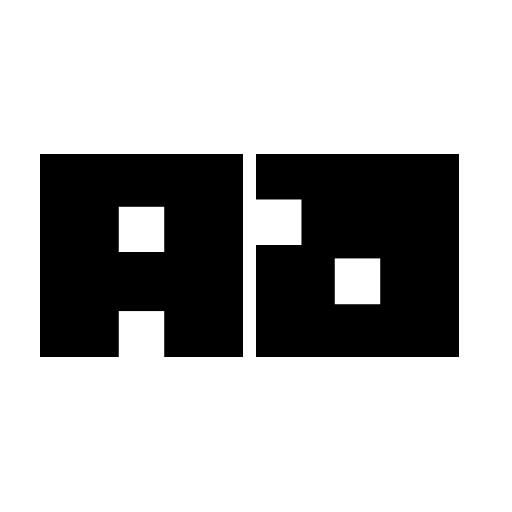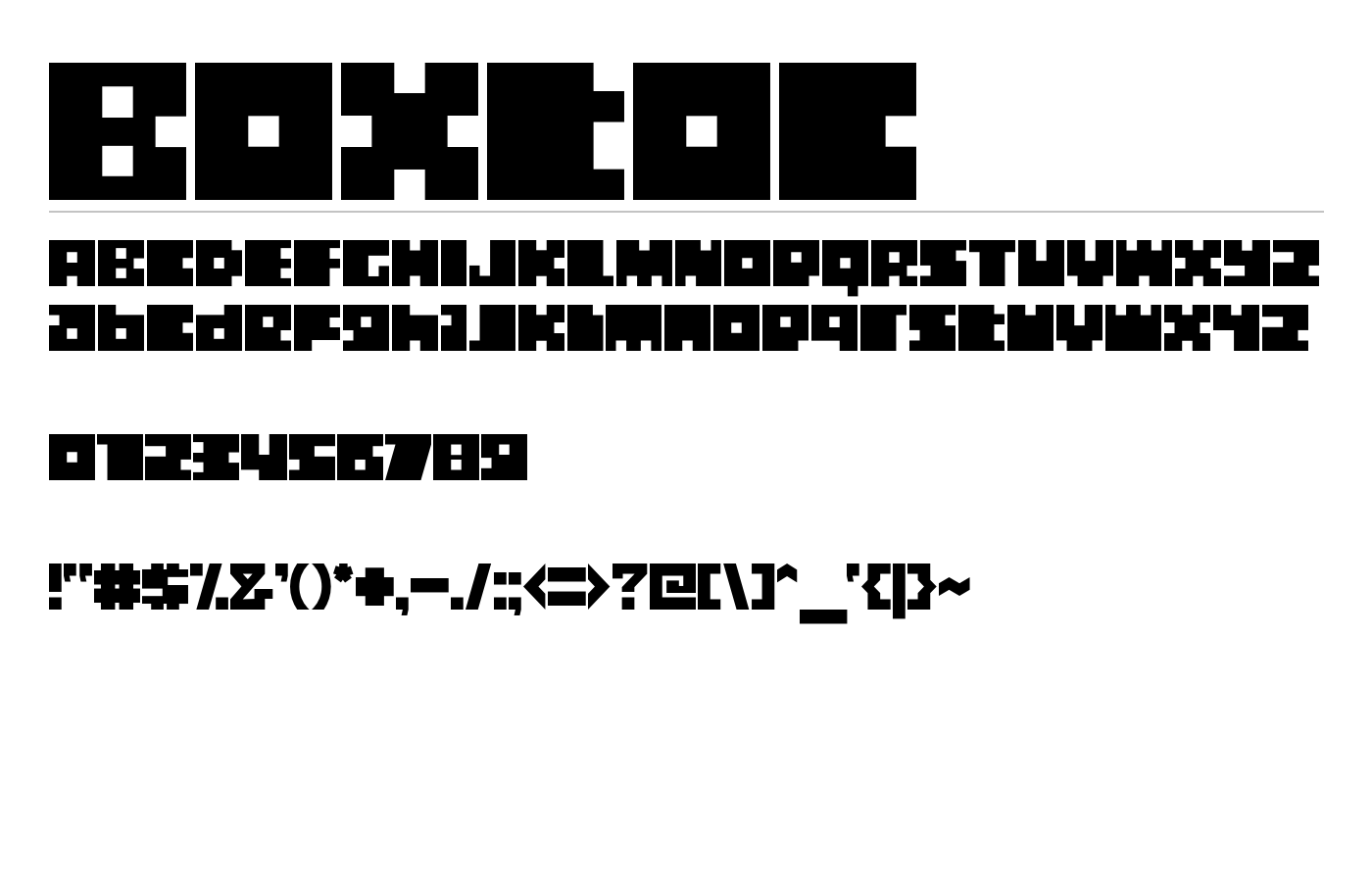
Boxtoc is a bold, geometric sans serif font characterized by its blocky, square shapes and uniform stroke thickness, giving it a strong and modern appearance. With its high x-height and tight spacing, it commands attention and works well for impactful headlines, logos, and digital displays where a distinct, edgy style is desired. This font is ideal for projects aiming to convey strength, innovation, and a futuristic vibe.
Boxtoc Font